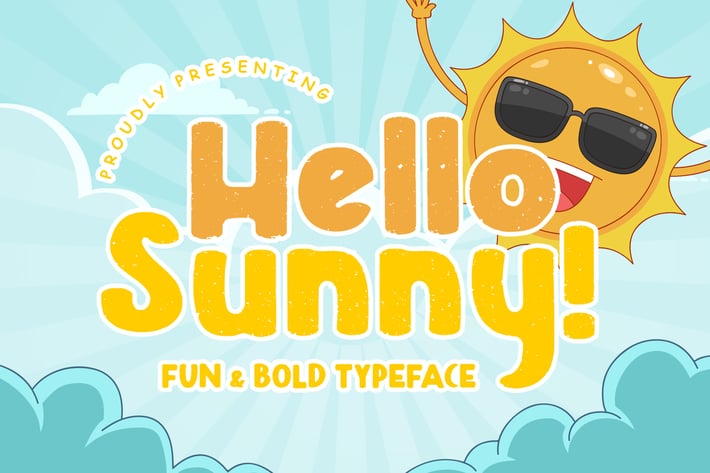
Hello Sunny Fun & Bold Typeface
Hello Sunny is fun & bold font which suitable to use for children occasion and related to summer event.
Hello Sunny is perfect for branding projects, logo, wedding designs, social media posts, advertisements, product packaging, product designs, label, photography, watermark, invitation, stationery and any projects that need handwriting taste.